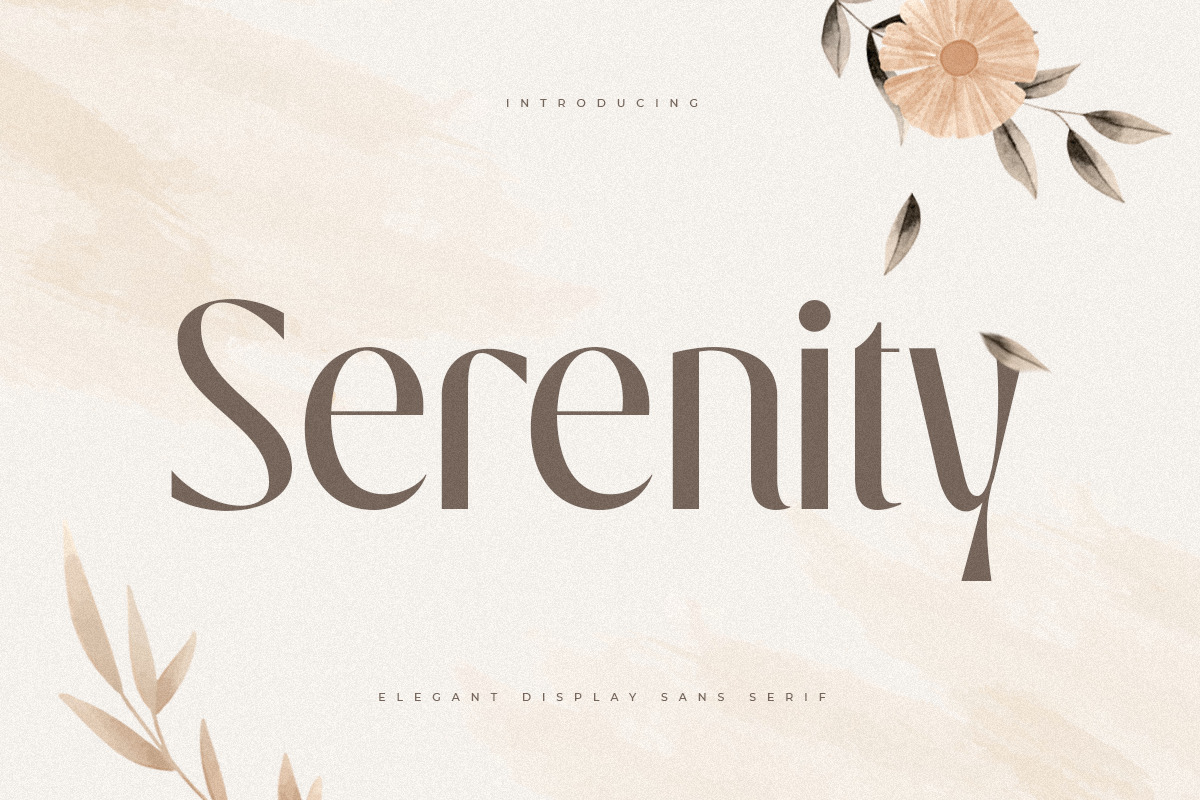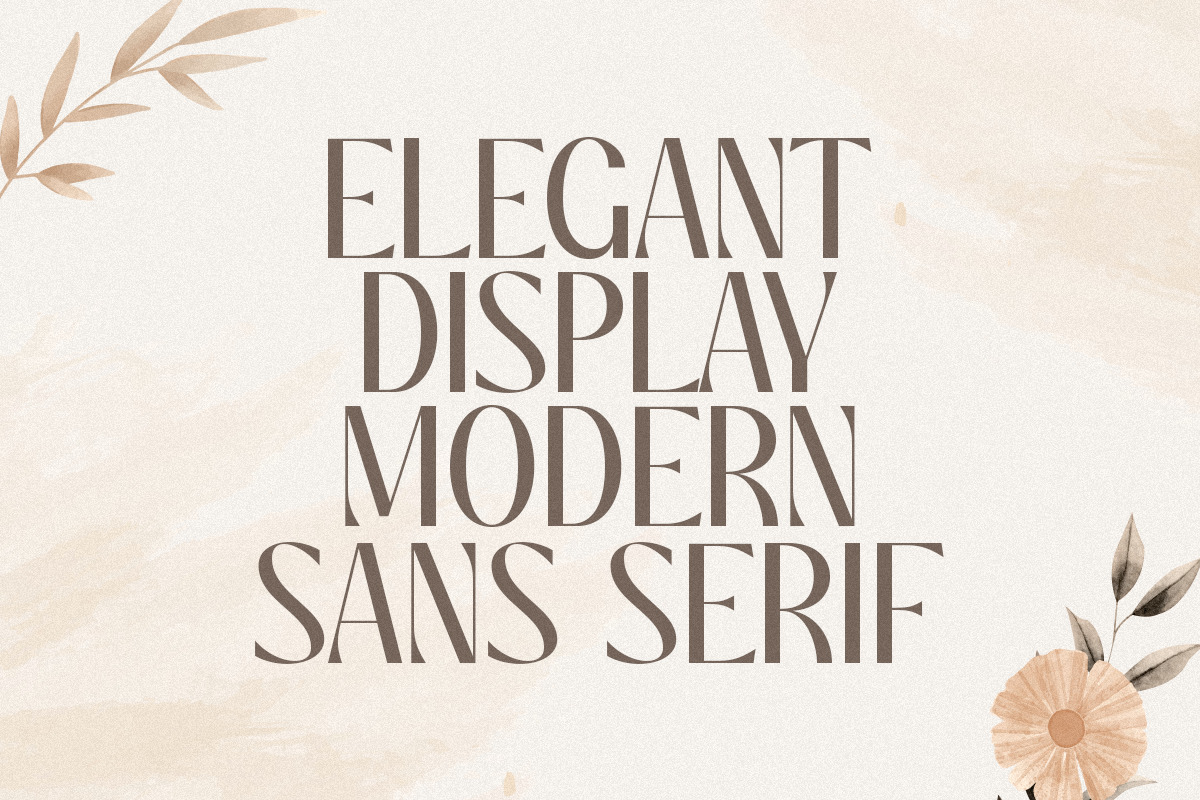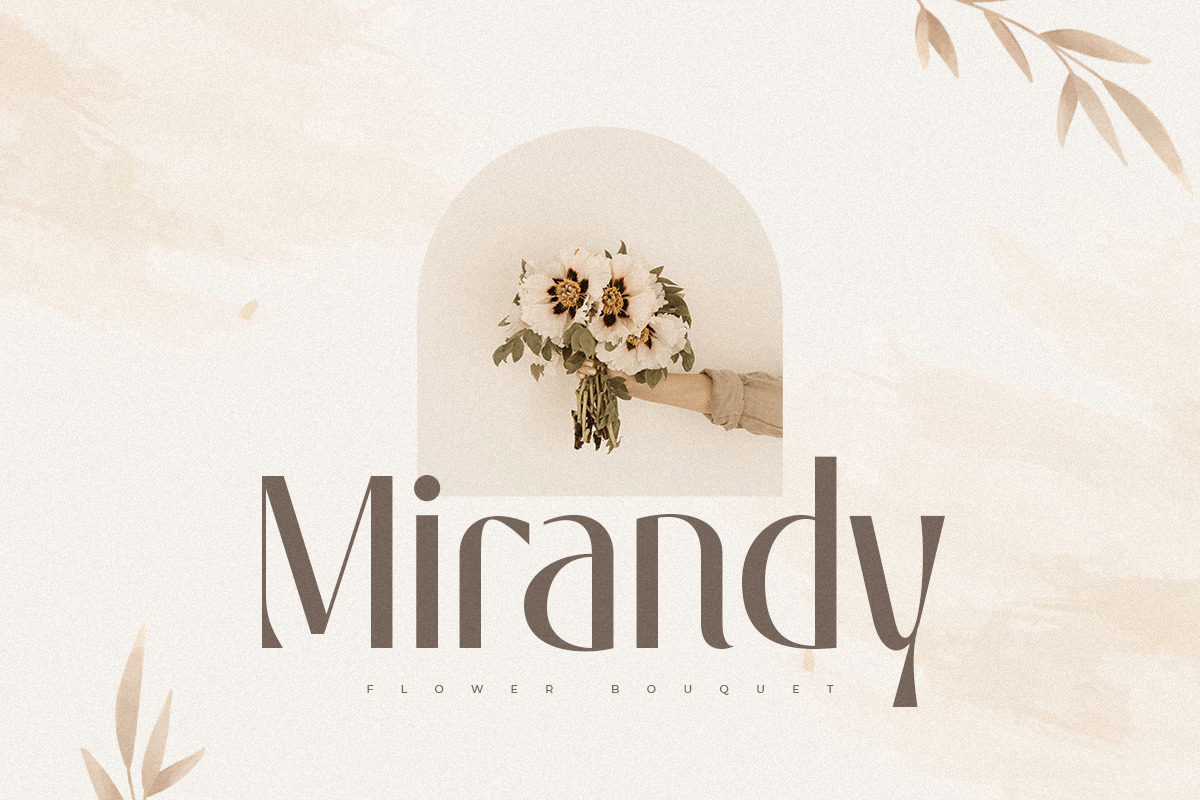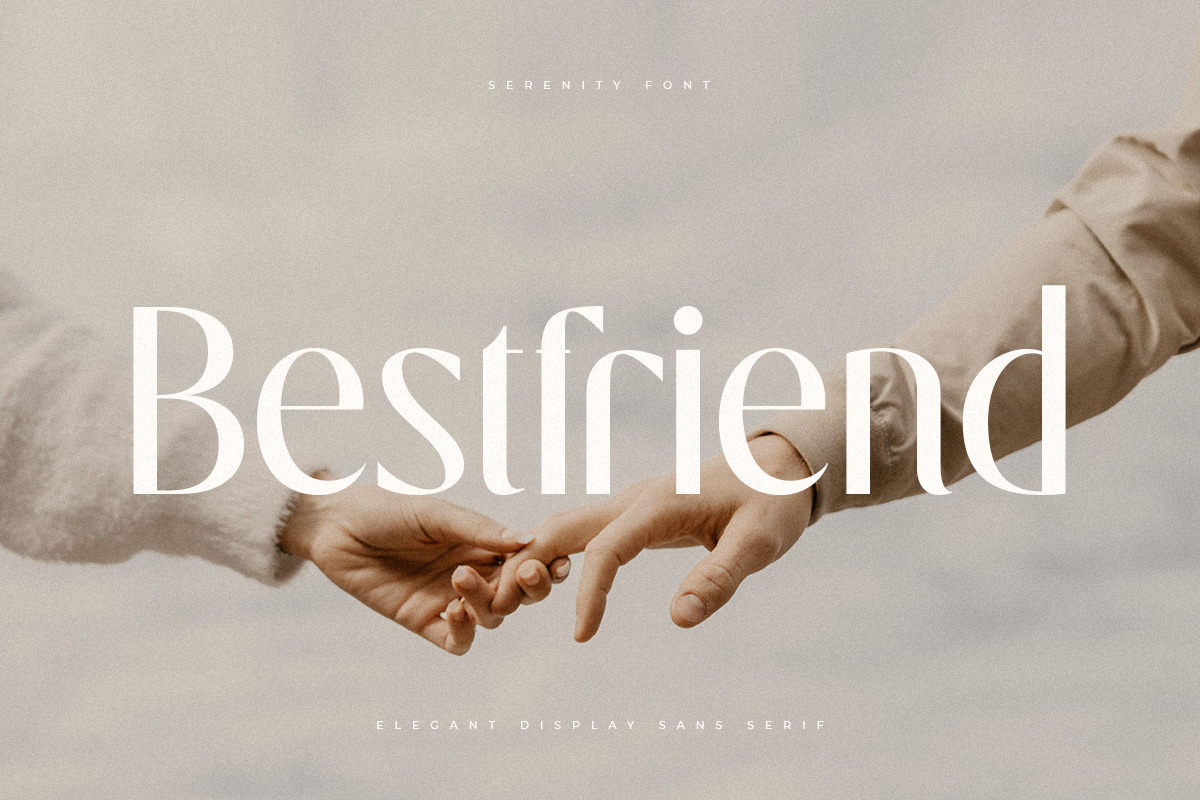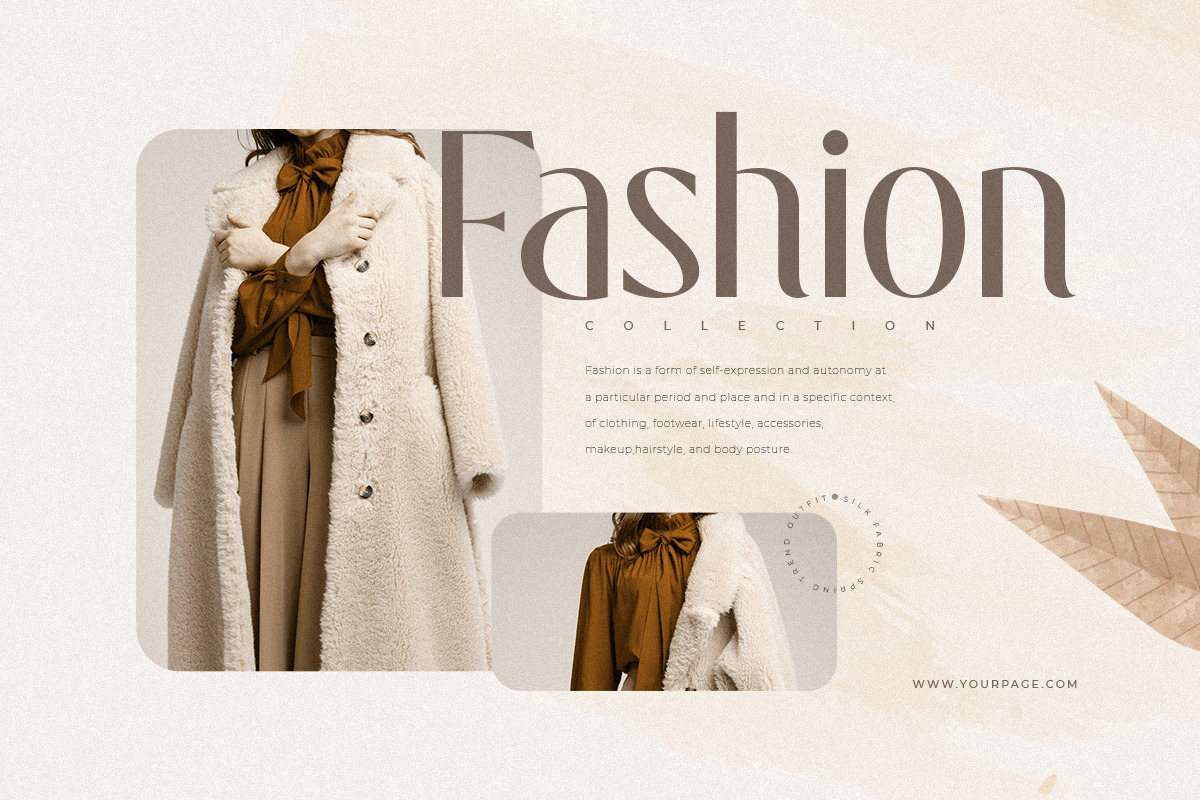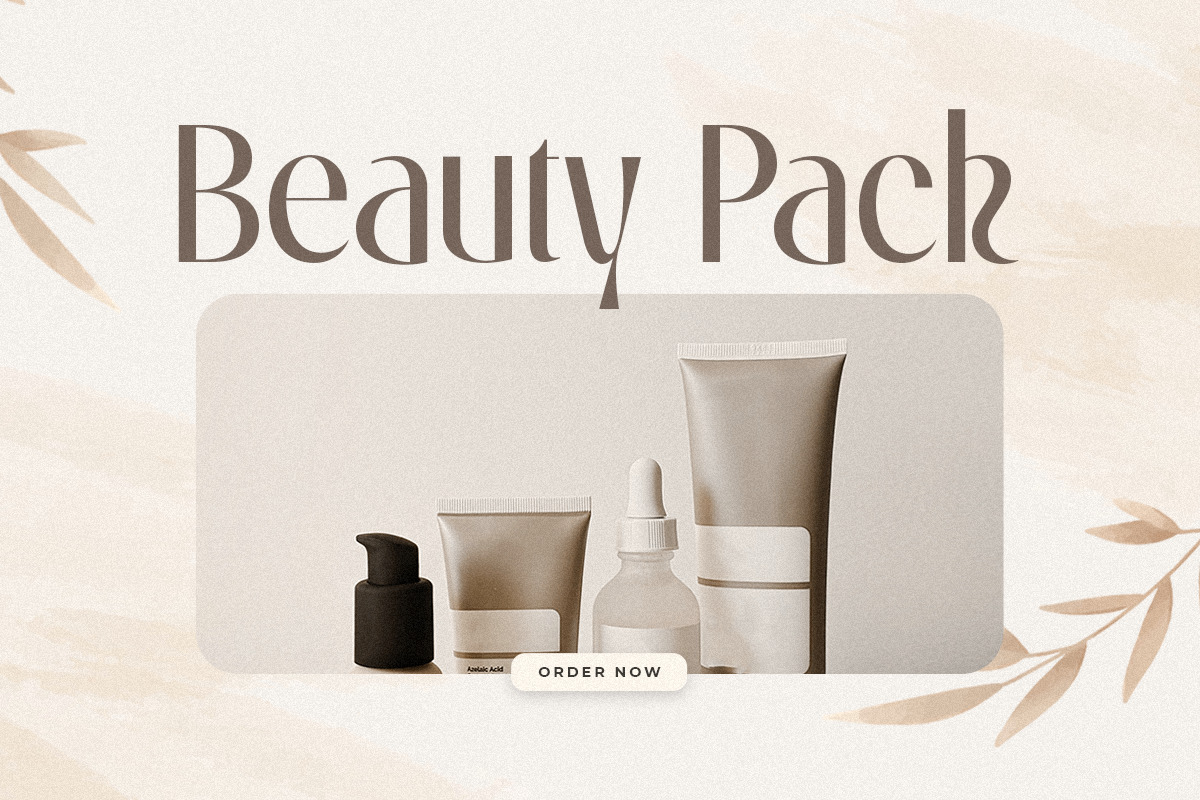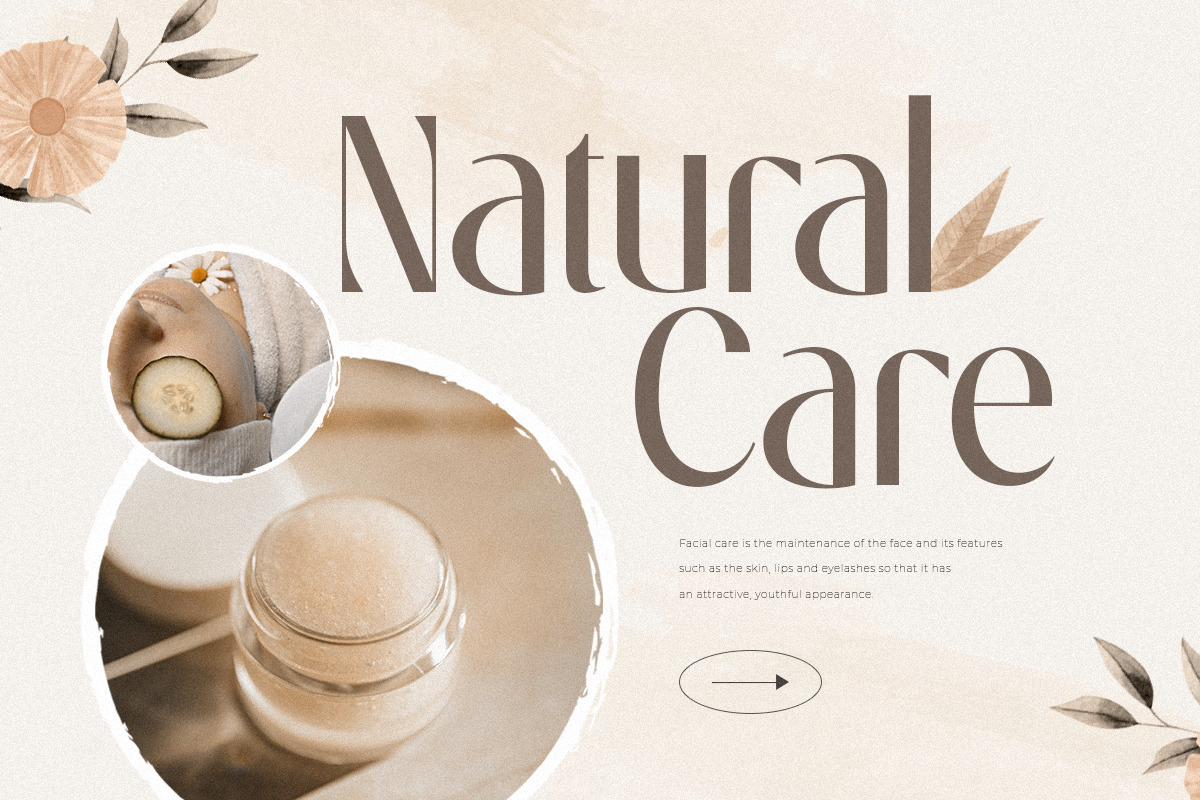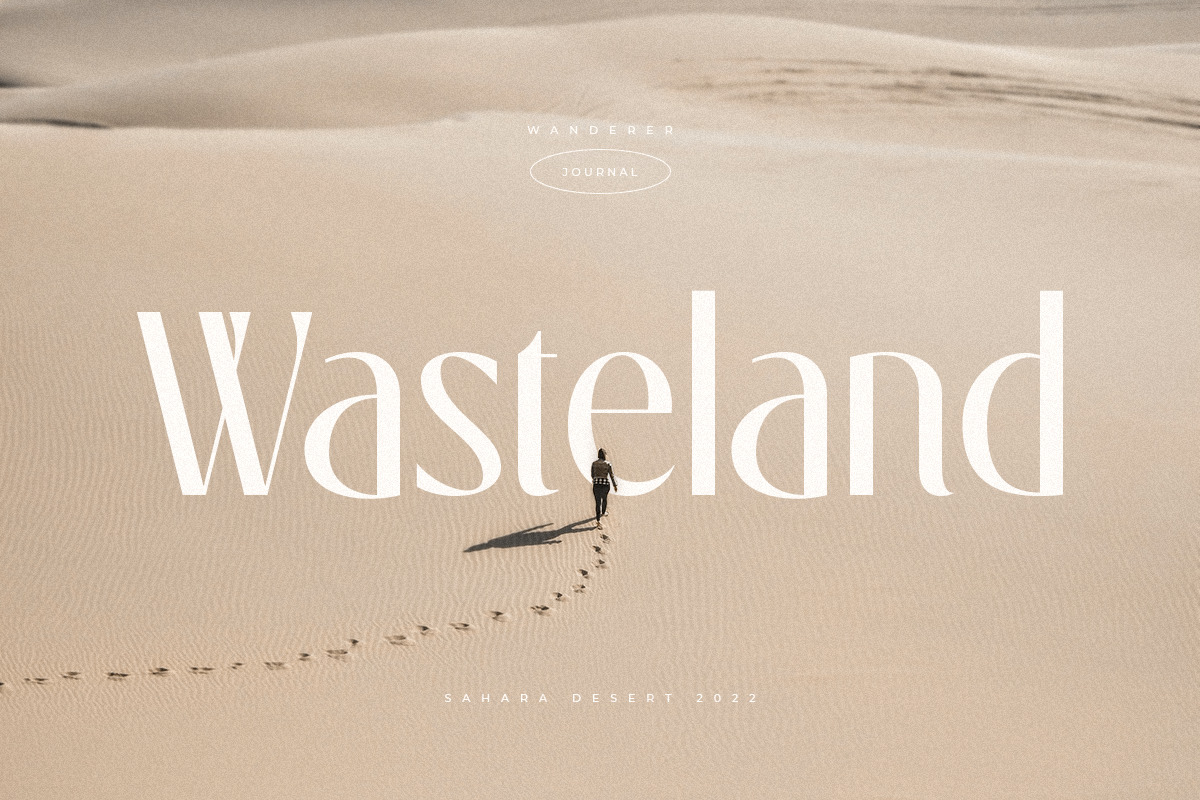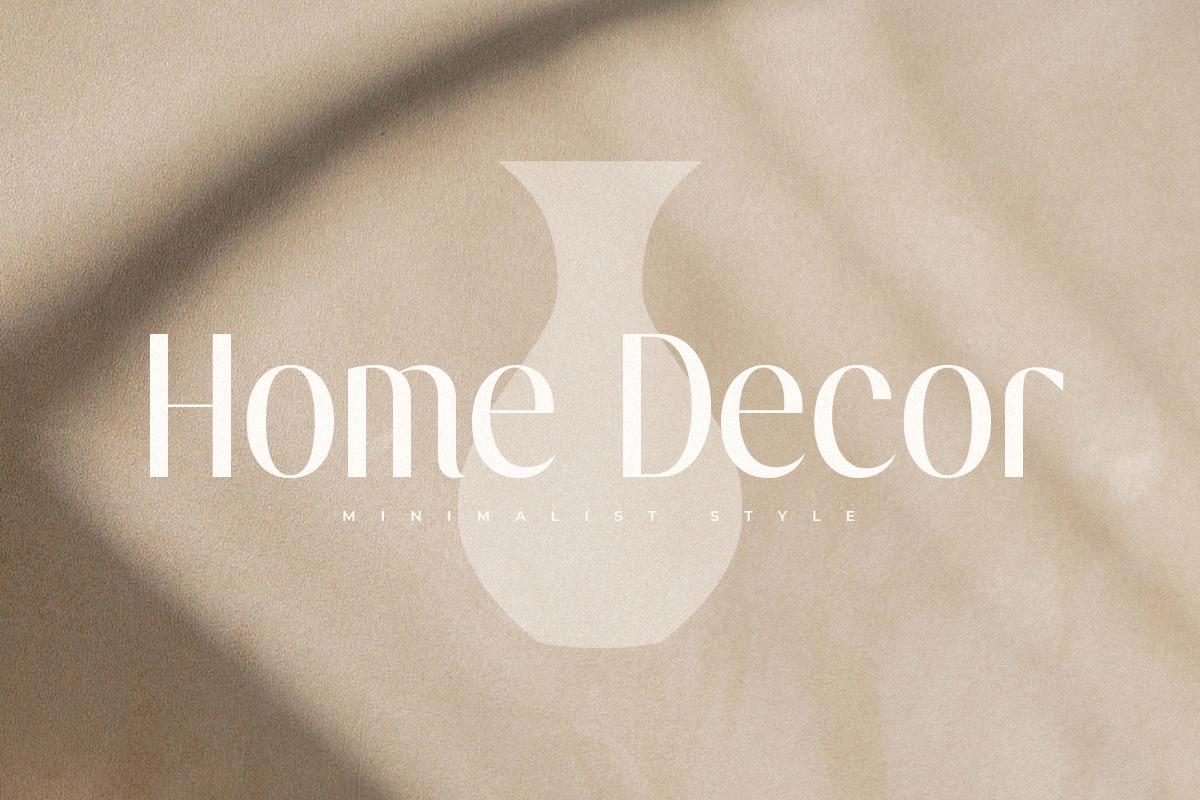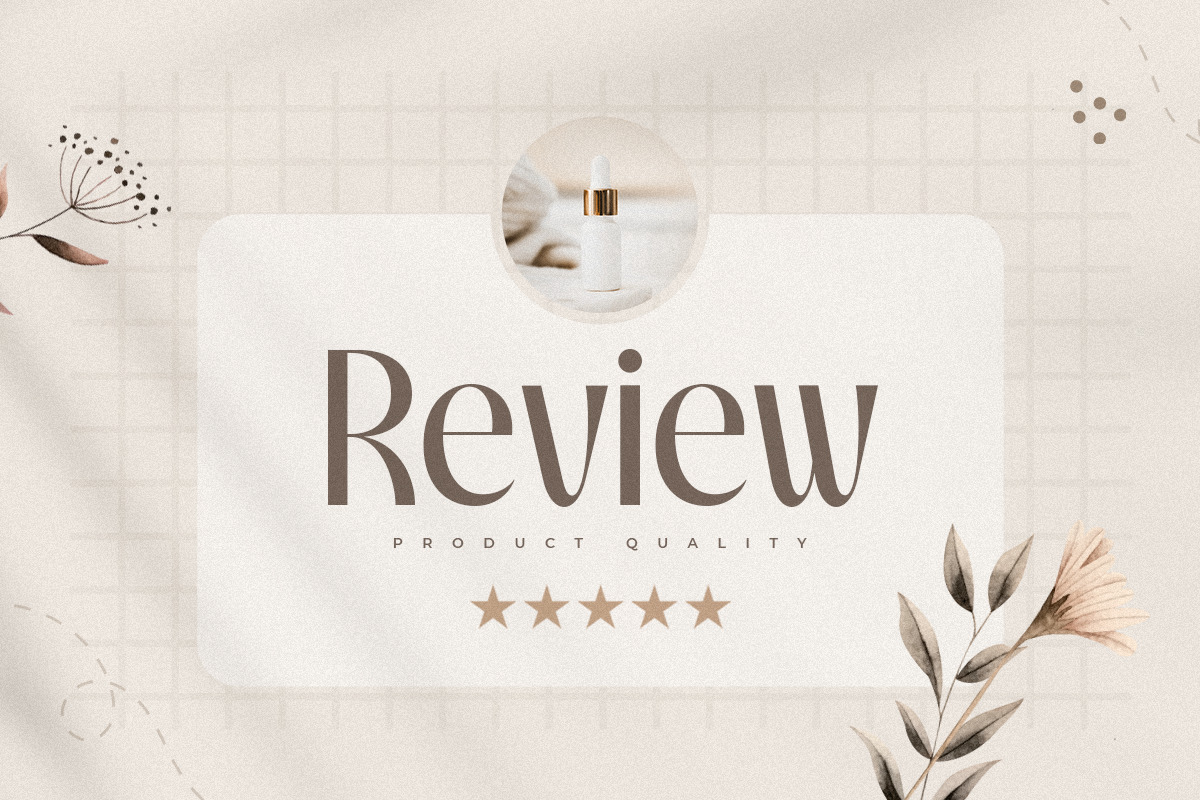
Serenity - Luxury Elegant Beauty Font
A Luxury Elegant Beauty font that we created special for elegant branding needs, with unique shape will be ready to add value of your brand. It so nice to leverage designer or product owner that need solutions to make their design look more stylish and modern. And specially for Serenity font, We prepared any characters to help you create unlimited variations for your creative needs.
- Unique Classy Characters
- Ready with Lowercase and Uppercase characters